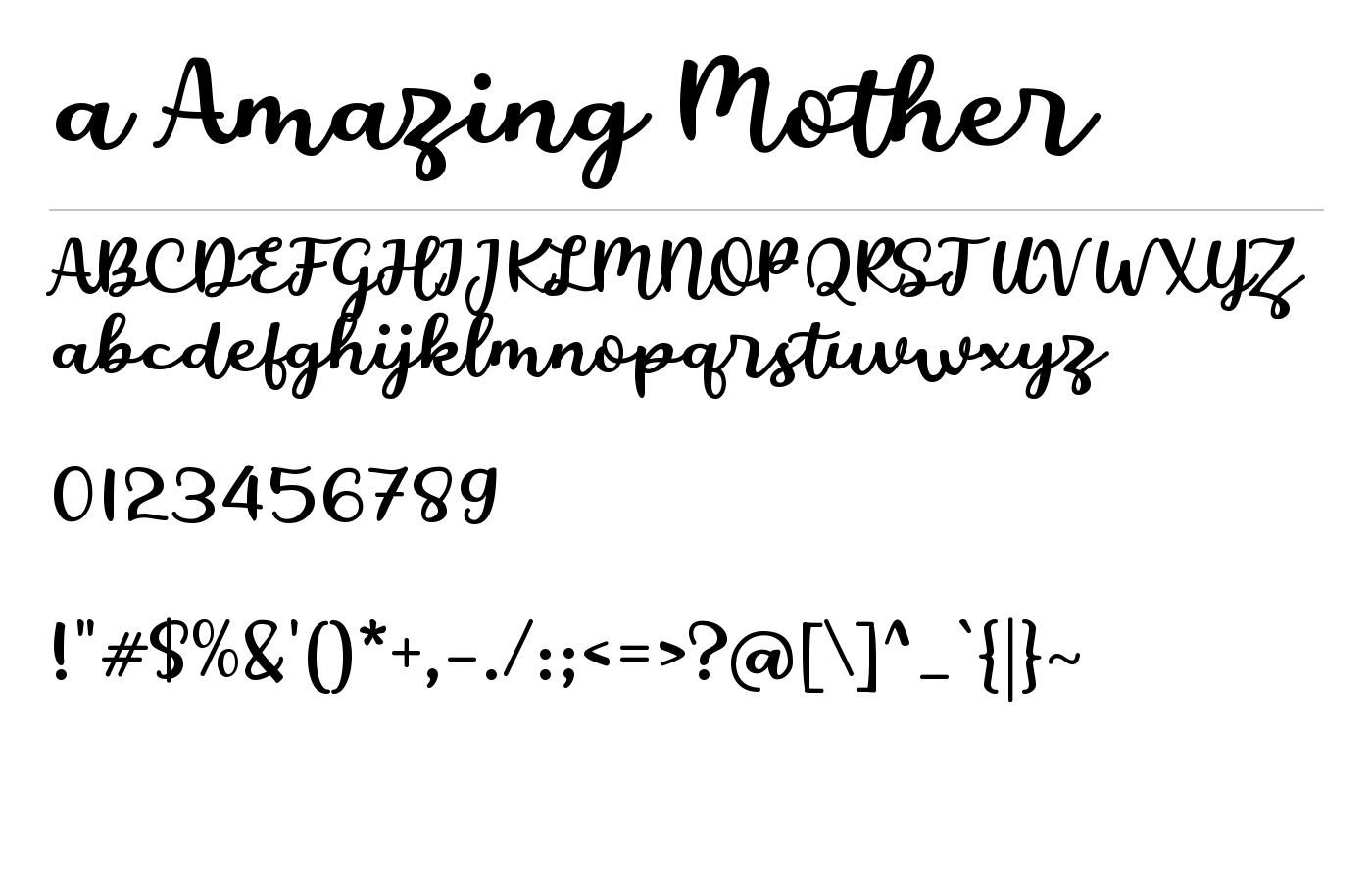
a Amazing Mother is a warm and inviting script font characterized by smooth, fluid strokes and playful, slightly irregular letterforms that evoke a handcrafted feel. Its moderately high x-height and connected cursive style make it perfect for designs seeking a personal, friendly touch, ideal for greeting cards, branding, and casual headlines. This font’s charming personality suits projects aiming for a heartfelt, approachable look without losing elegance or readability.
a Amazing Mother Font
About a Amazing Mother Font